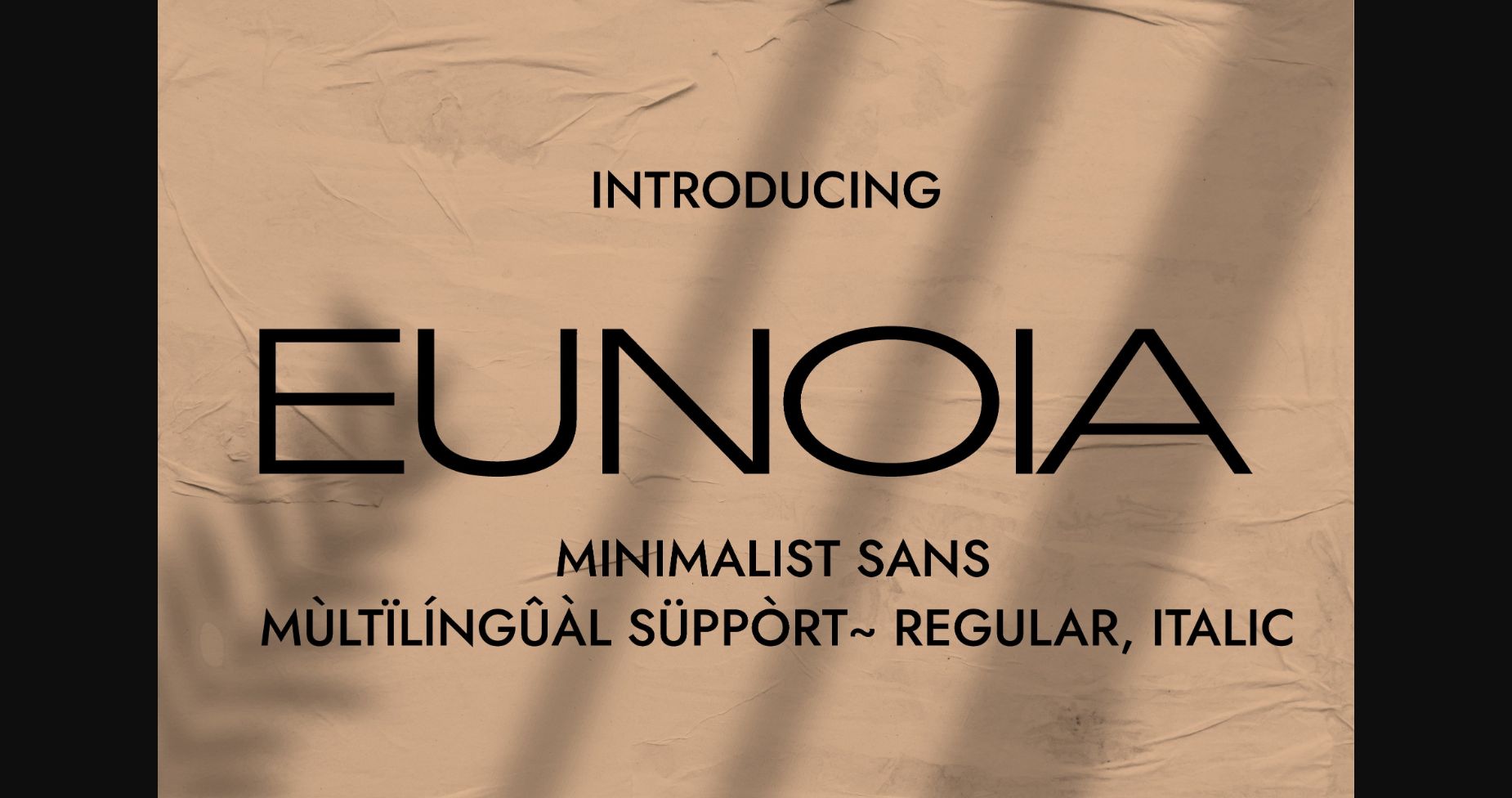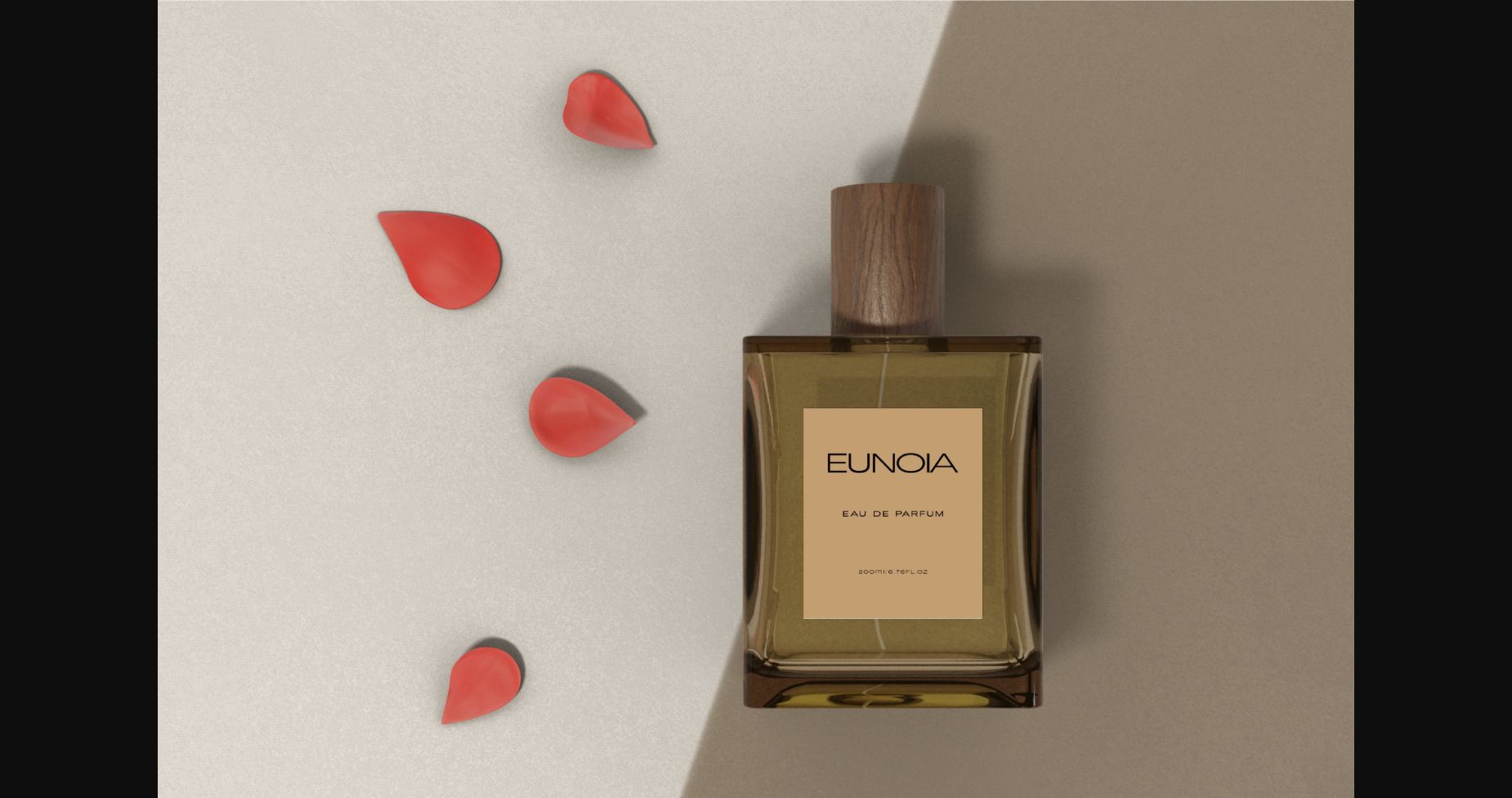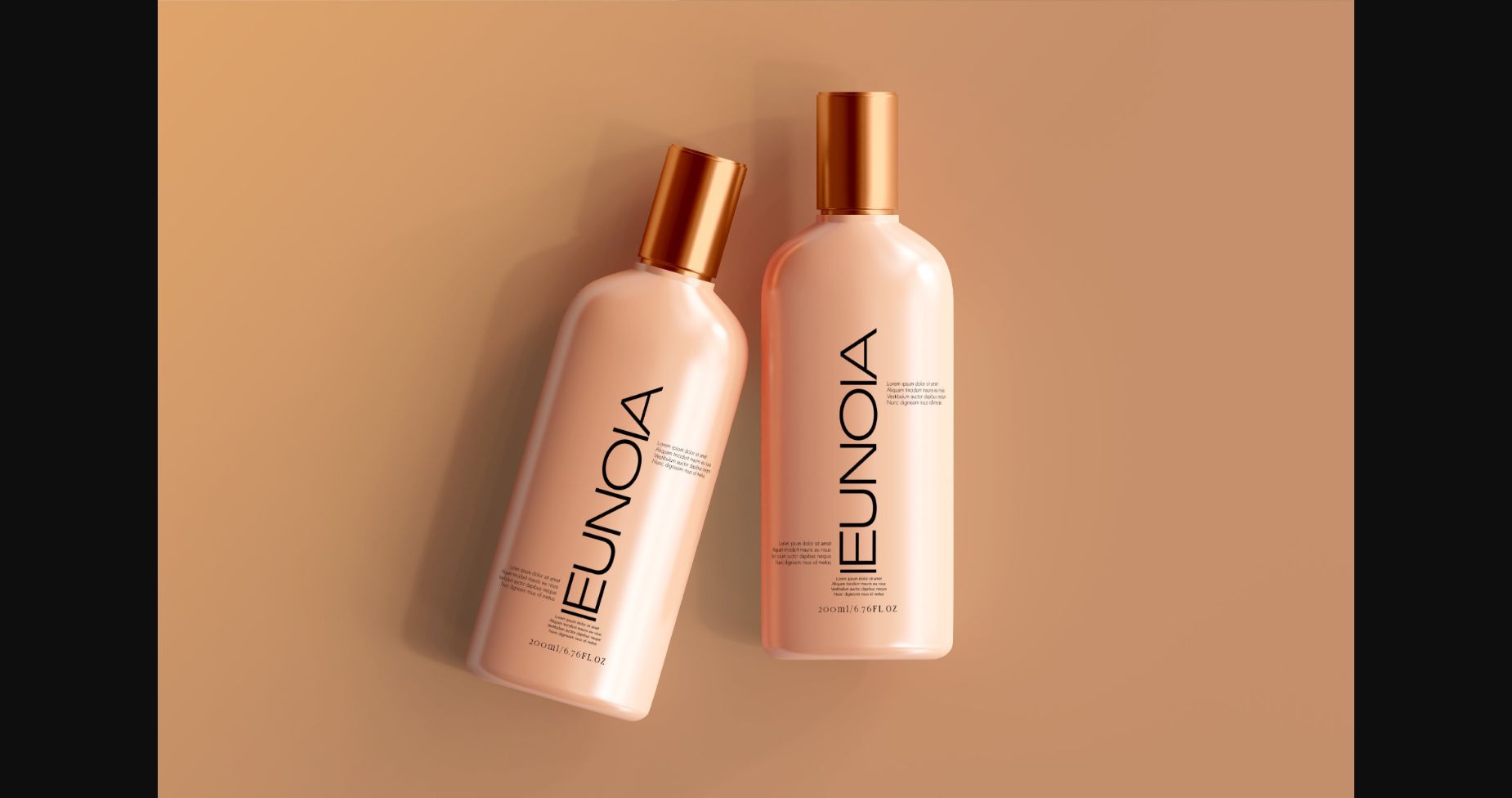
About Eunoia Font
Aurora is a clean and elegant sans serif typeface. Its clean fat glyph construction renders it a valid choice when it comes to designing minimalistic luxurious graphics. It can be used for packaging design, large-scale titling, branding, fashion design, cosmetics, etc. Use it confidently in your creations, and you will notice how much power it can add to any context.